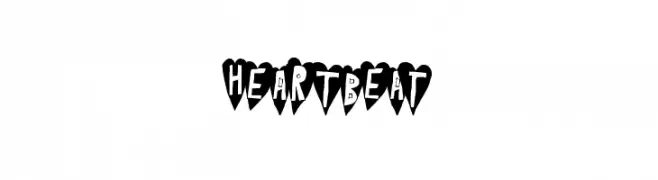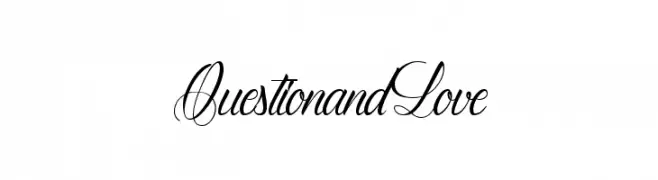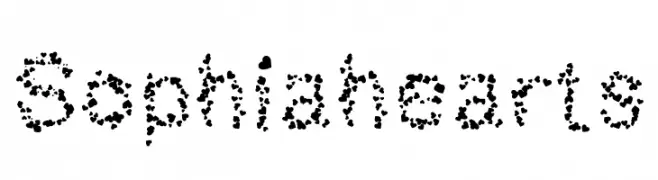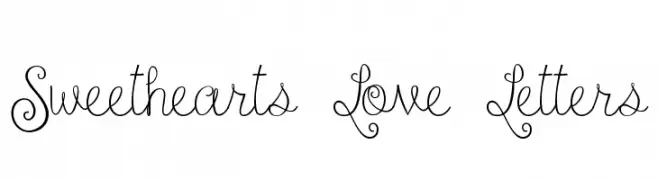
A decorative font with characters inside heart shapes, ideal for romantic themes.
A playful font with heart motifs on each character, perfect for romantic and fun designs.
A decorative font made of heart shapes, perfect for romantic and playful designs.
A bold, decorative font with heart motifs for a romantic and playful style.
A bold italic font with heart motifs, perfect for romantic themes.
A playful sans-serif font with heart motifs, perfect for romantic themes.
A whimsical, curly font with a playful and decorative style.
A playful, heart-shaped decorative font with bold contrast.